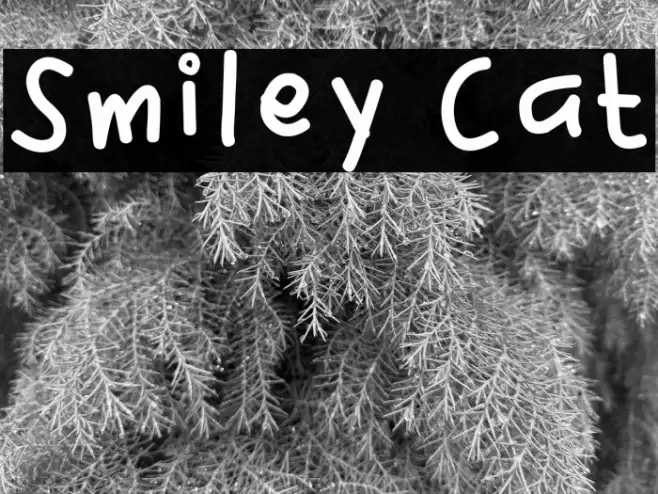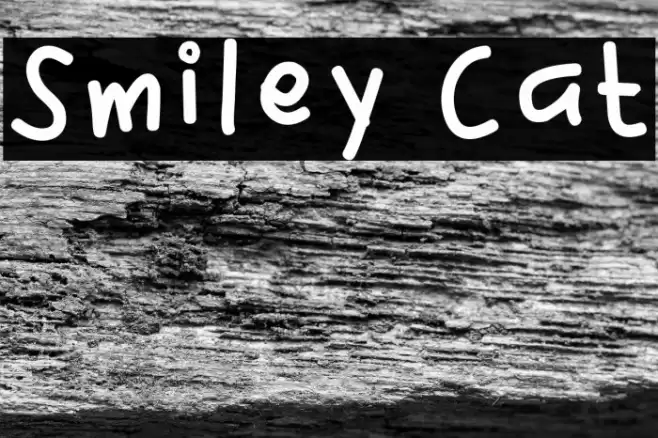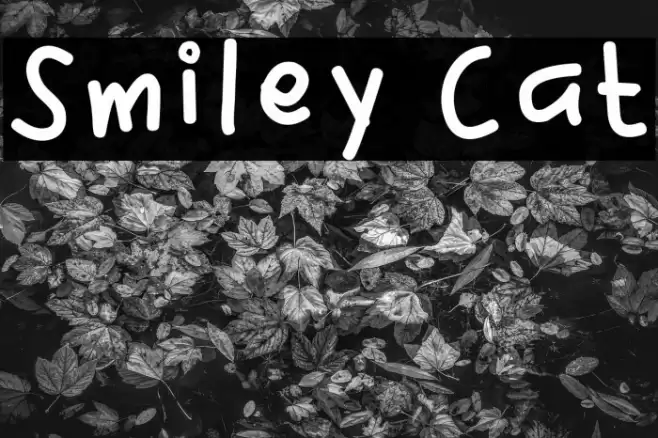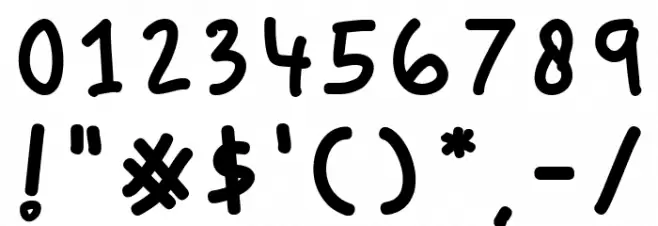
Smiley Cat Font
Smiley Cat Description
This playful and whimsical font features a handwritten style with a casual and friendly appearance. The letters are slightly irregular, giving it a personal touch that mimics natural handwriting. The strokes are rounded and smooth, contributing to its approachable and informal feel. It maintains a consistent weight throughout, with moderate spacing that ensures readability. The font includes a full set of uppercase and lowercase letters, numbers, and a variety of special characters, making it versatile for various uses. Its charming and light-hearted design is perfect for projects that aim to convey warmth and creativity.
A playful, handwritten font with a casual and friendly style from Regular fonts.
- Font: Smiley Cat
- Proposed Projects: Ideal for children's books, greeting cards, casual branding, and creative projects.
- Overall Style: Casual, Playful
- Use Case: Headlines, Informal text, Creative projects